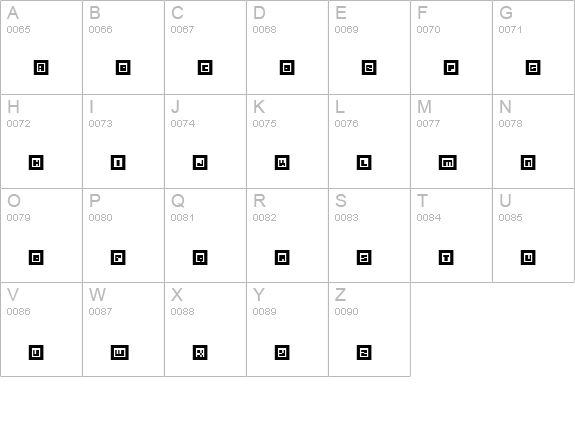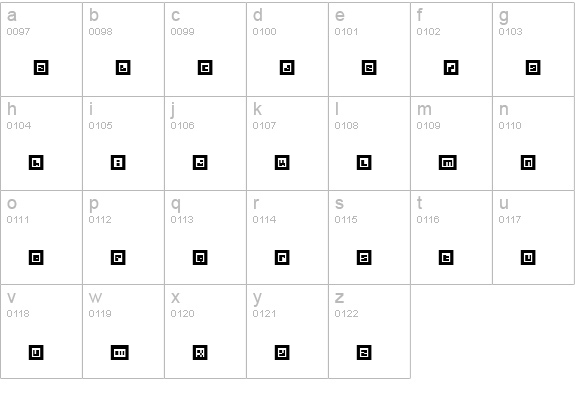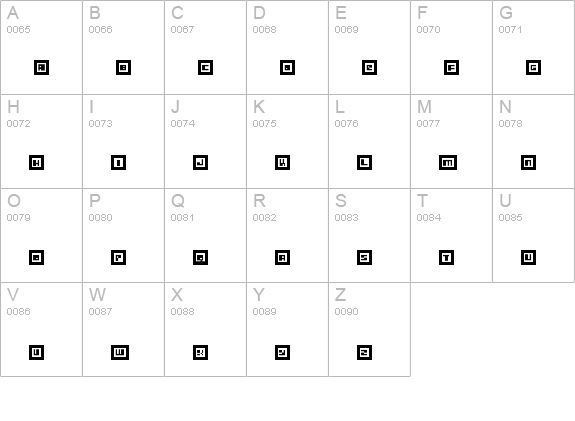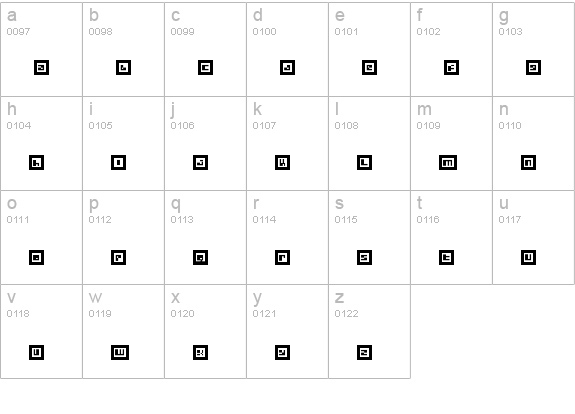
Metrobot Font Details
Metrobot font is a modern and sleek typeface that exudes a futuristic and robotic vibe. Its geometric shapes and sharp edges make it perfect for tech-related designs, branding projects, and cutting-edge presentations. The bold and eye-catching appearance of Metrobot font will surely make your text stand out and captivate your audience. The best part is that Metrobot font is available for free download at FontsMarket.com. This means you can easily access this unique and stylish font to enhance your creative projects without any cost. Don't miss out on the opportunity to add Metrobot font to your font collection and elevate your design game to the next level.